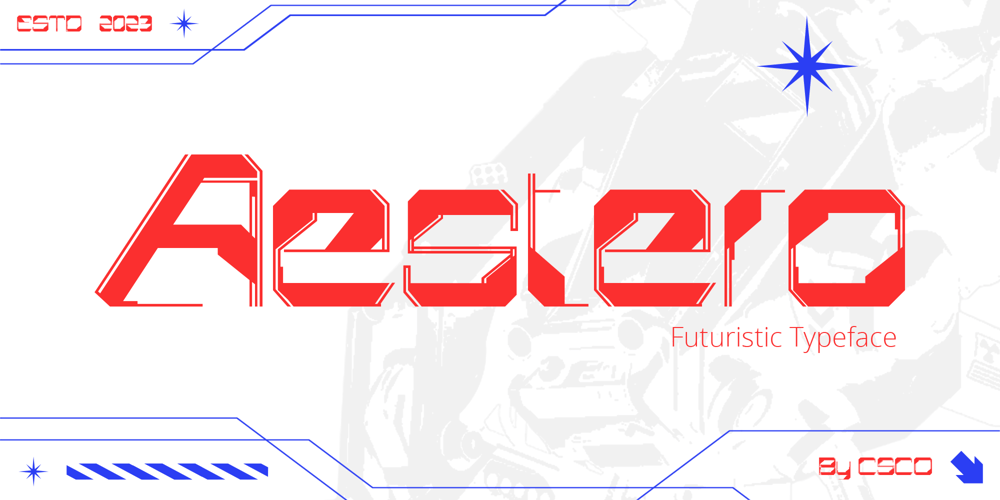
Aestero Font Family was designed by Trio Nazzar Saputra, Wahyu Hadi Yuana and published by Craft Supply Co. Aestero contains 8 styles and family package options. Aestero Futuristic TypefaceCutting-Edge InspirationAestero Futuristic Typeface, drawing from Gundam and sci-fi aesthetics, embodies a cutting-edge design for a bold display impact.Sleek Sci-Fi EleganceNamed Aestero, this font seamlessly blends Gundam inspiration with sci-fi elegance, presenting sleek characters with a futuristic charm.Dynamic and Bold PresenceAestero commands attention with dynamic and bold letterforms, making it an ideal choice for projects seeking a strong visual presence.